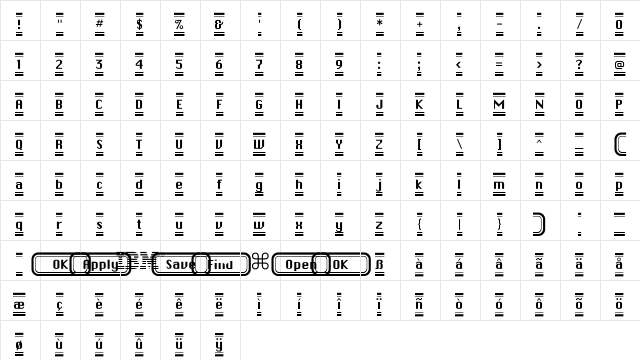
ButtonHilightFLF Regular
Design Context for ButtonHilightFLF Typeface
ButtonHilightFLF is a composed and adaptable typeface that performs quietly and consistently across a wide range of design contexts. Its slender proportions lend an understated elegance to any composition.